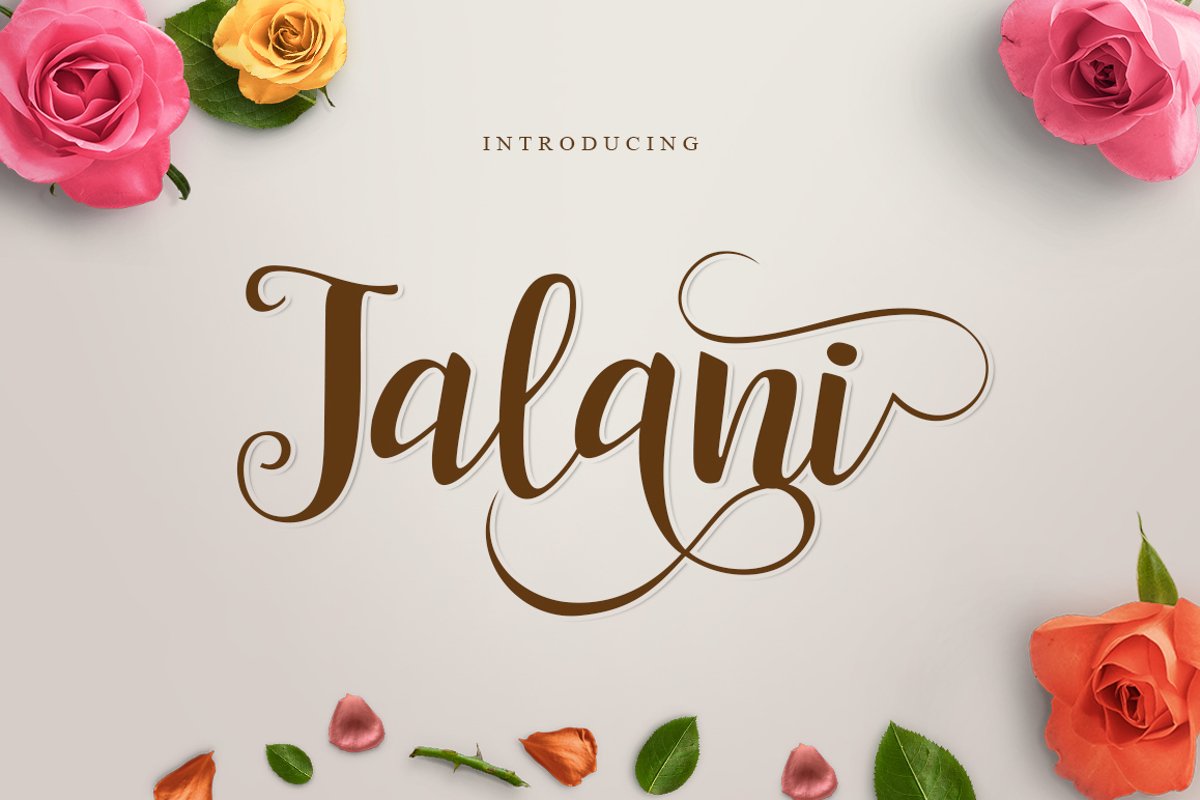
Jalani Script is fresh and modern with a calligraphy style, decorative character and a dancing baseline! It is suitable for use for invitations such as greeting cards , branding materials, business cards, quotes, posters, and much more!!